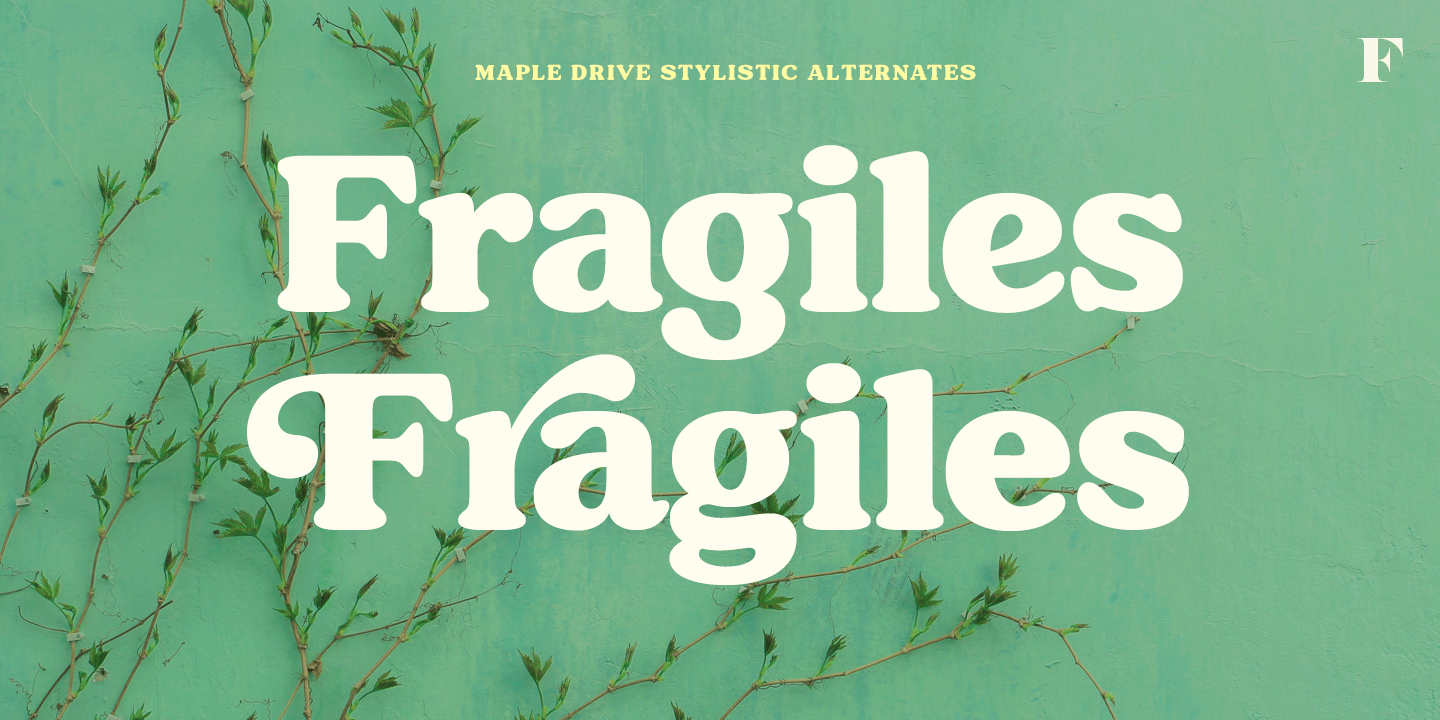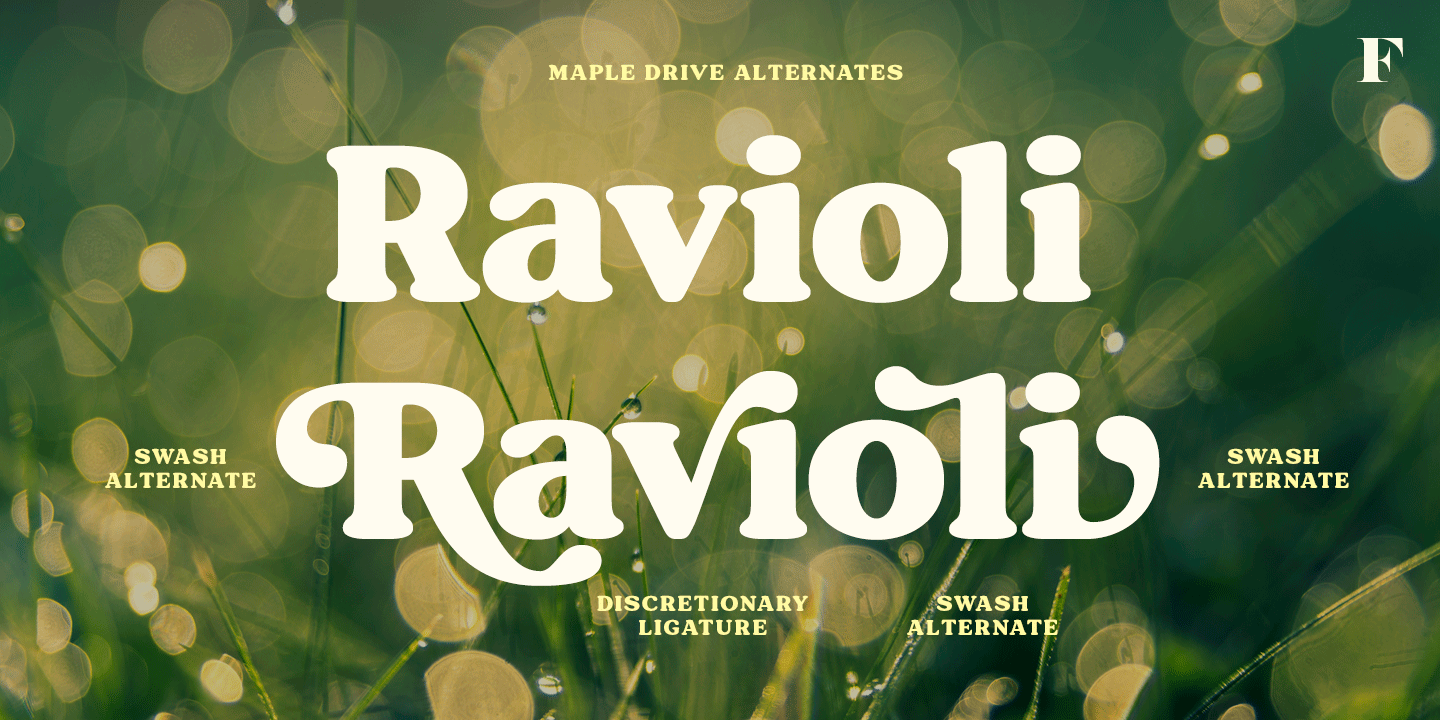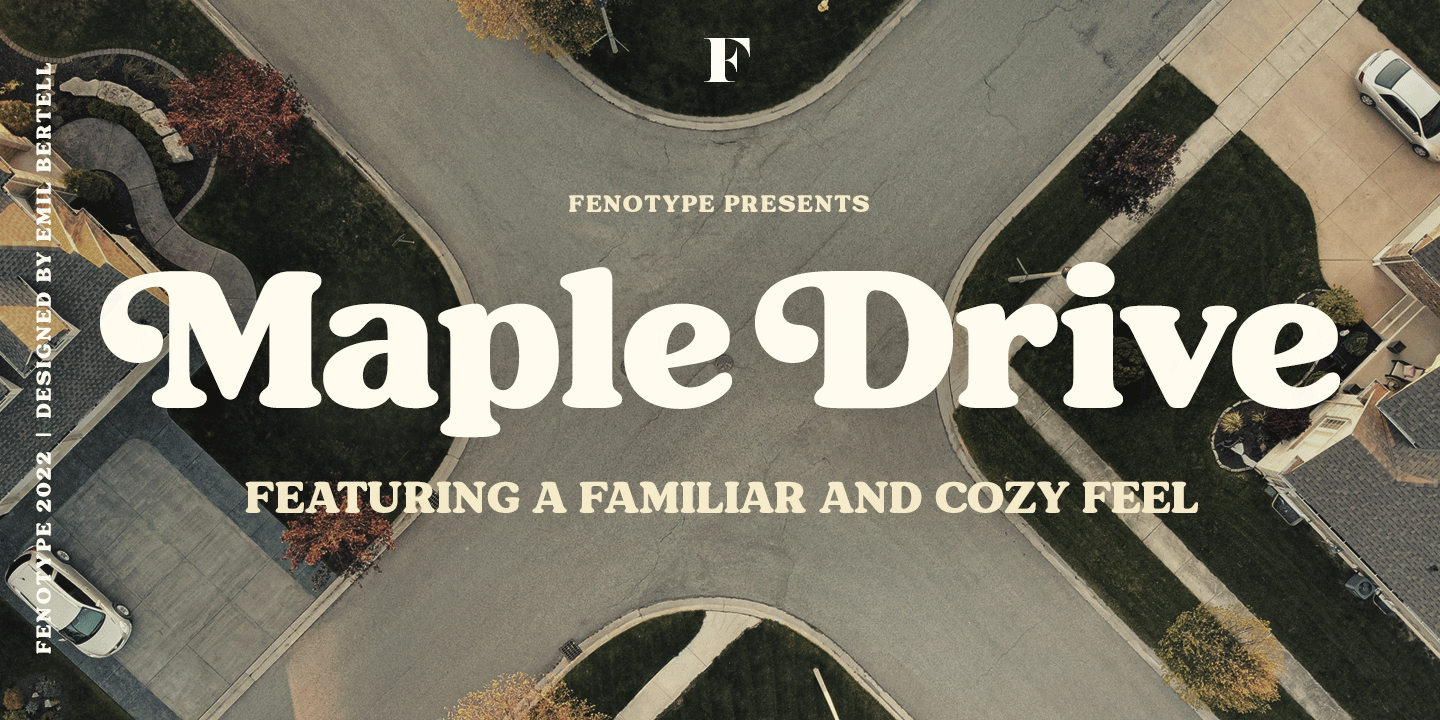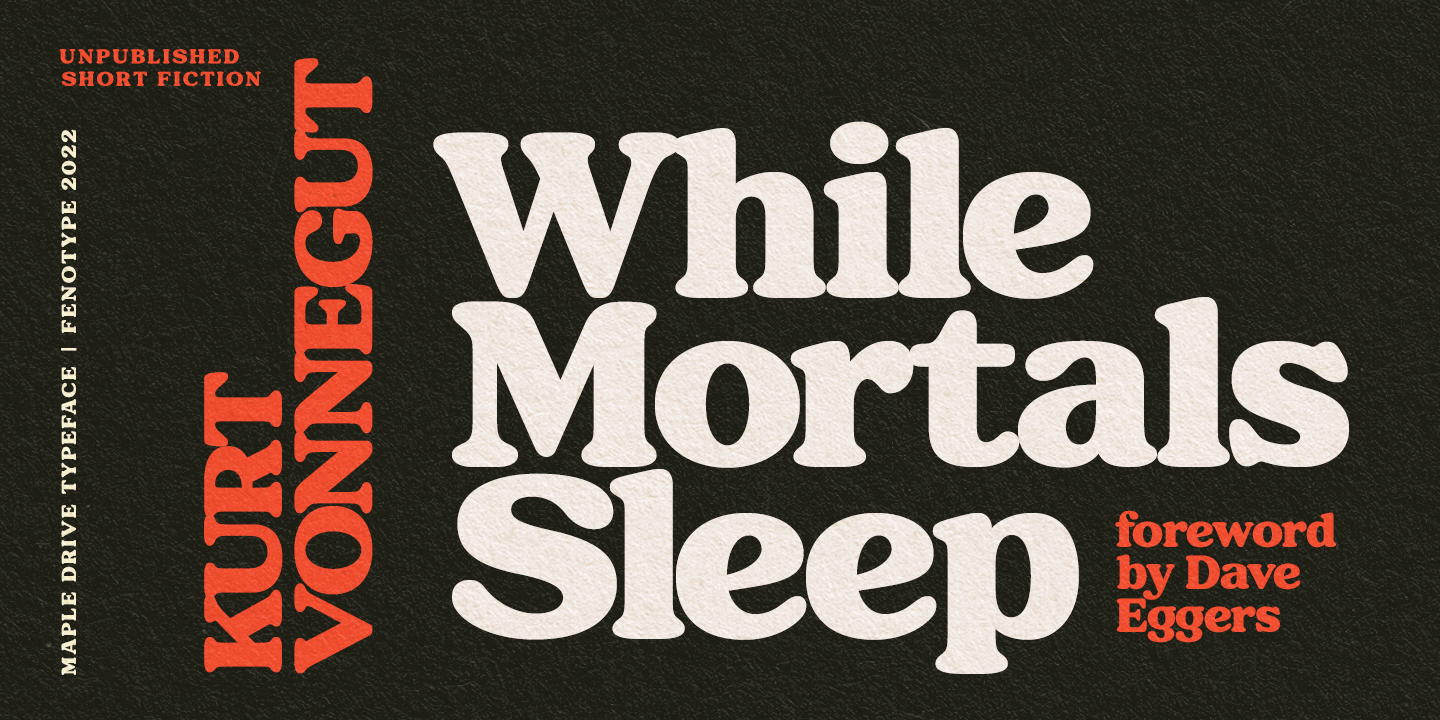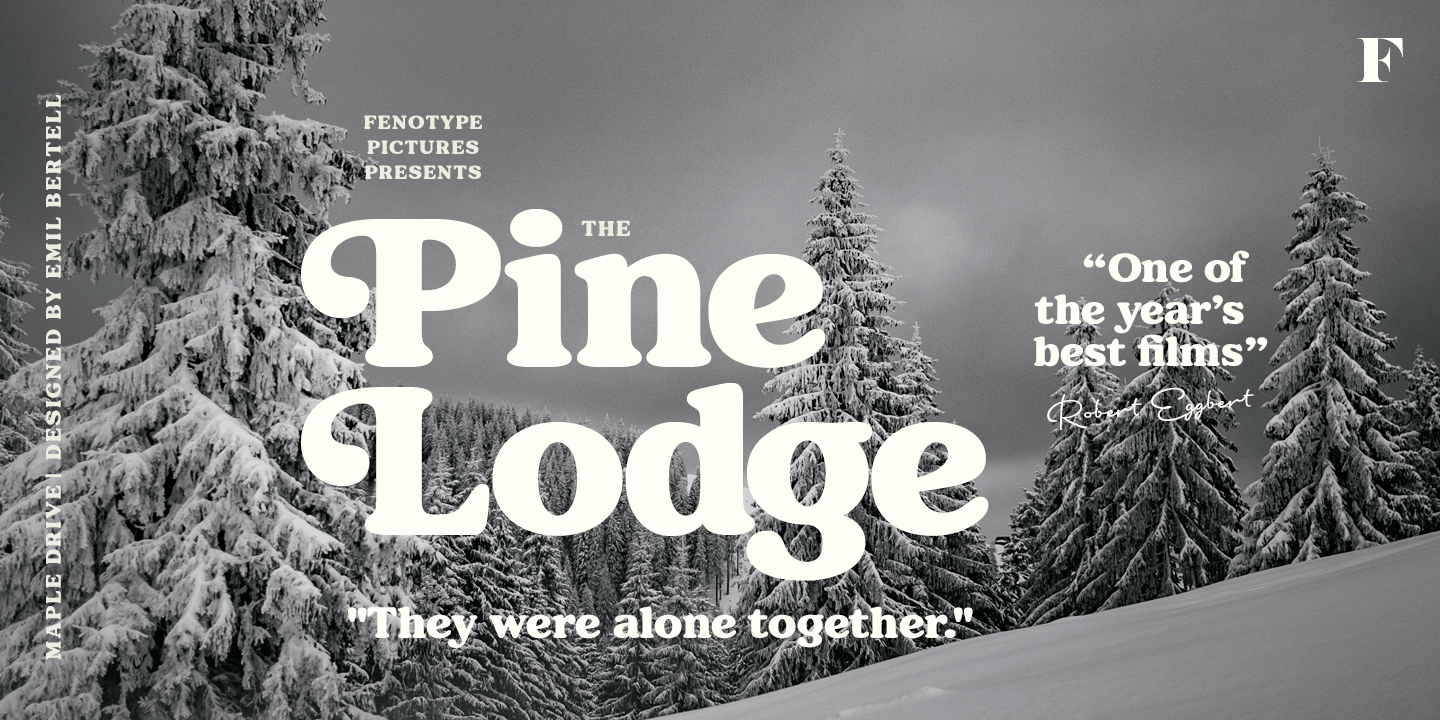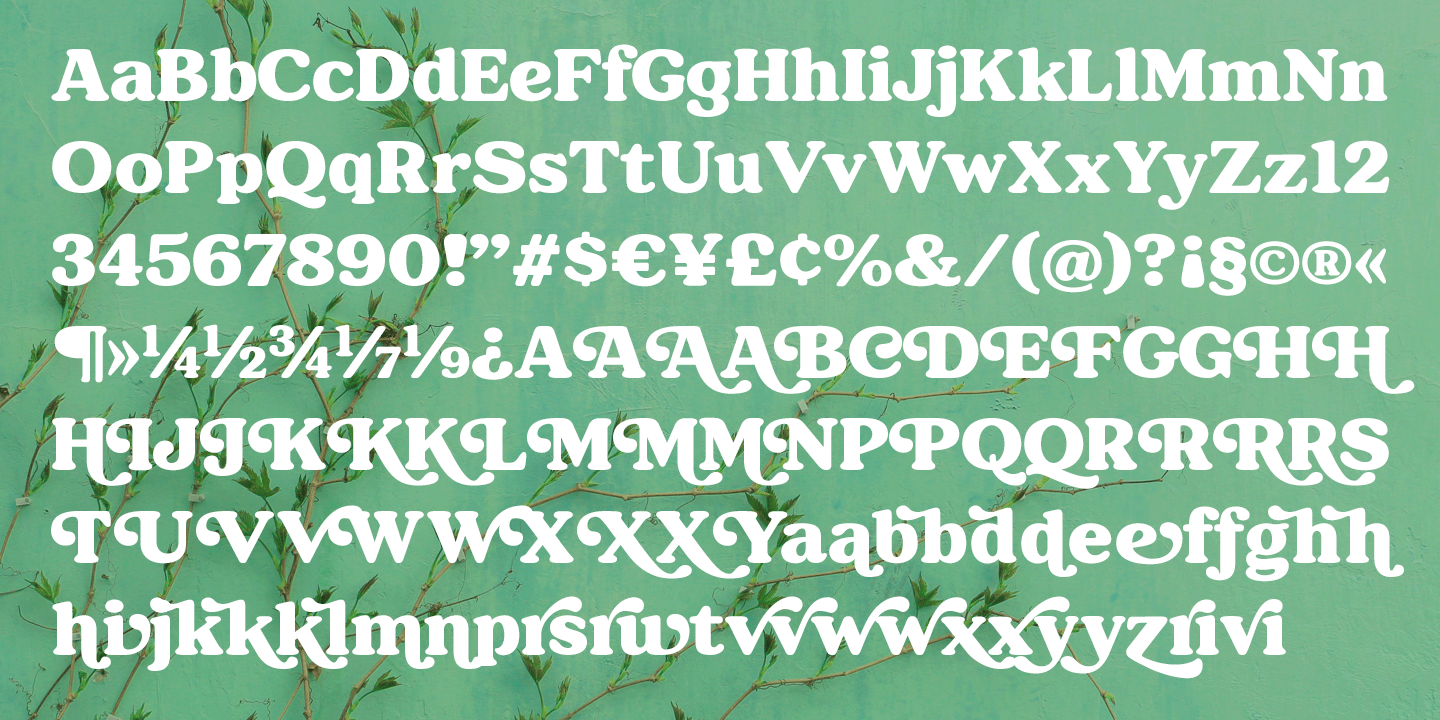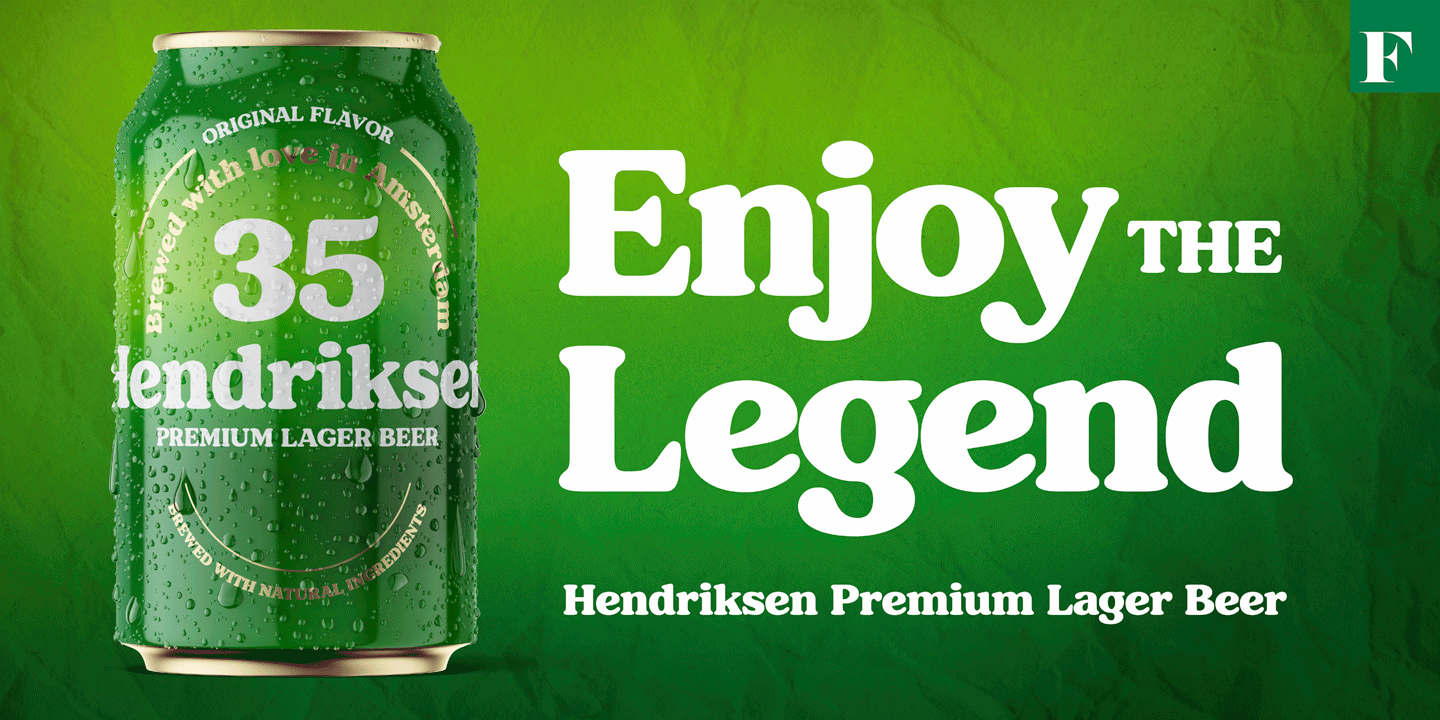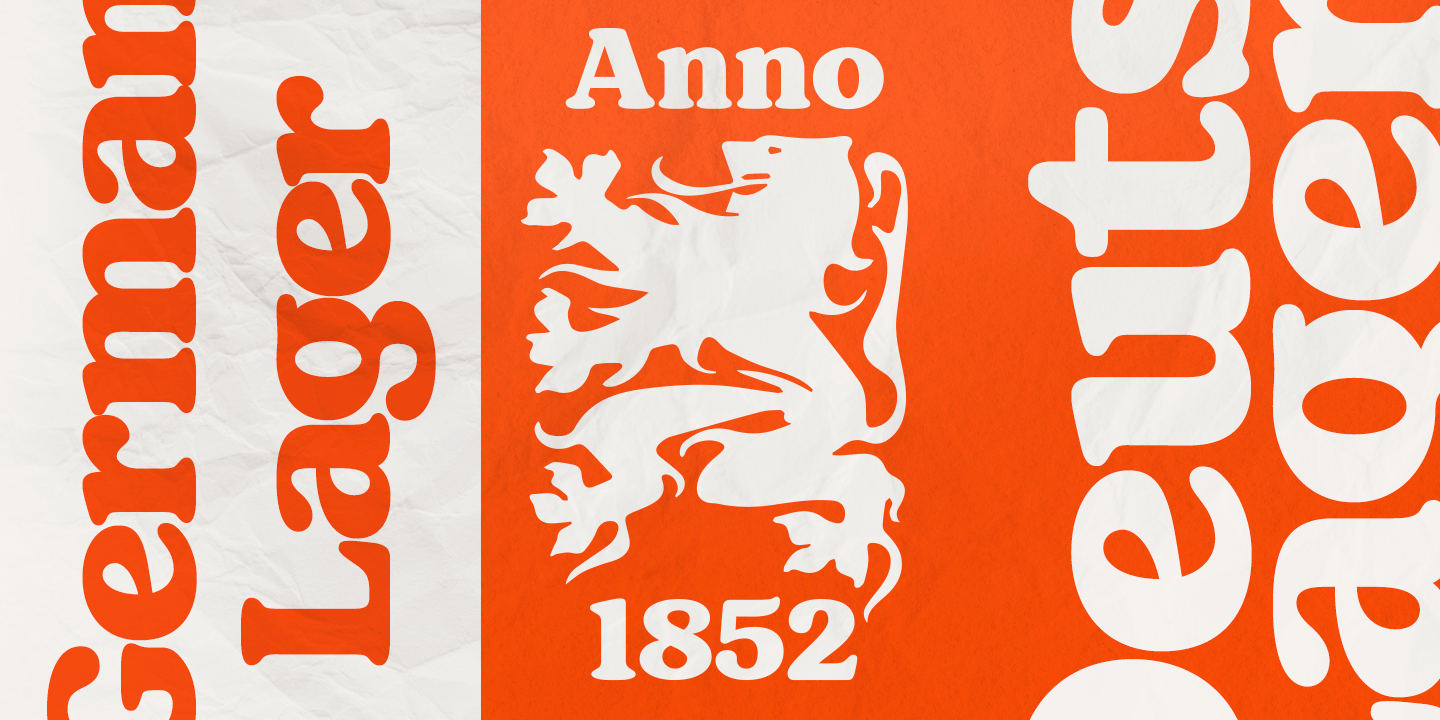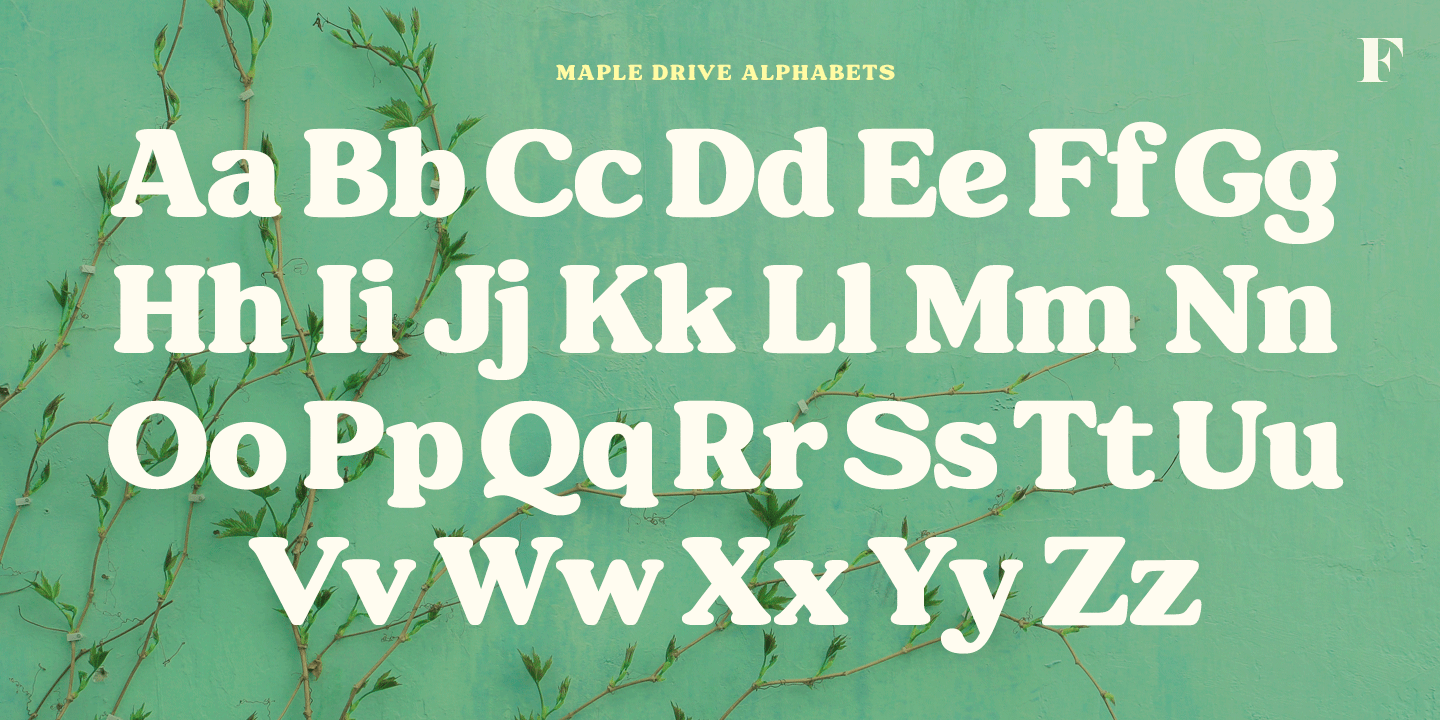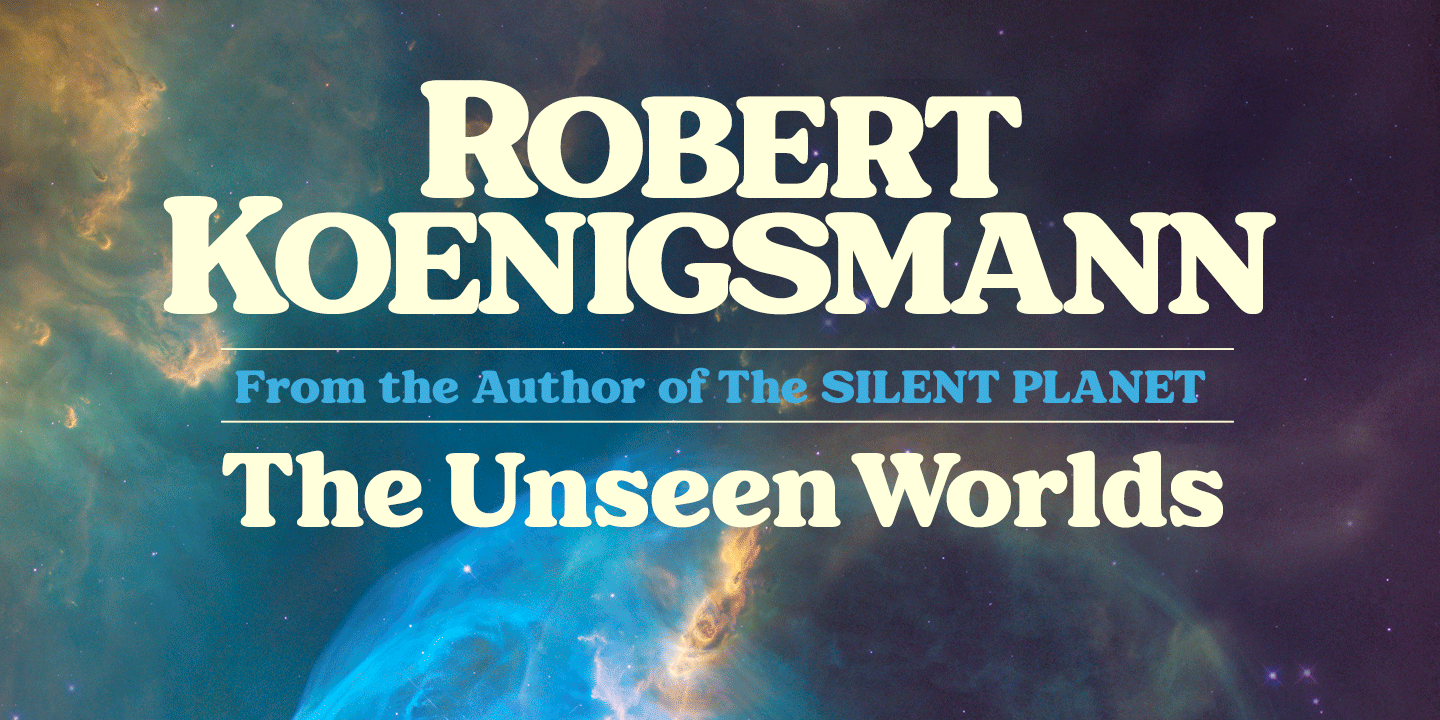
Maple Drive is a bold rounded serif typeface with a warm and familiar feel built-in. Maple Drive delivers a recognizable nostalgic feeling polished for modern day use. Maple Drive works great as a logotype, in magazines, headlines, posters, advertising and packaging. As a product of the modern era, Maple Drive is fully equipped with plenty of OpenType goodness: Standard Ligatures are automatically on and they step in on certain letter combinations, such as ff and fi. In addition it has a wide range of, Stylistic, Swash and Titling Alternates as well as Discretionary Ligatures that you can trigger on or off from OpenType controls in any OpenType savvy program, or manually select the suitable variations from the character window. Try these alternates for more eloquent designs. Alternates are best to treat like you would treat a really strong spice: just a bit at a time. See the full range of the alternative glyphs on the specimen posters.